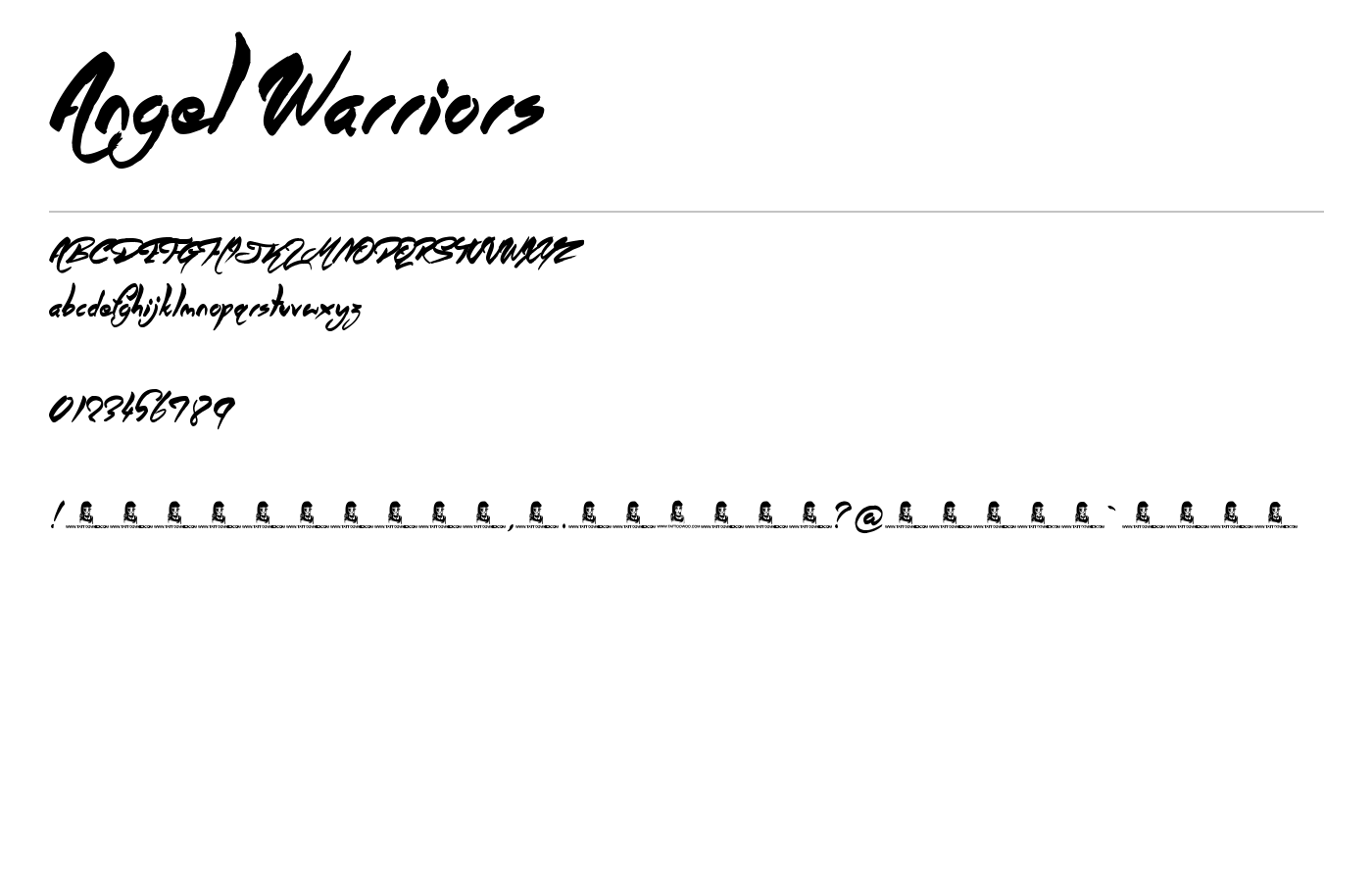
Angel Warriors is a bold and energetic brush script font that conveys a sense of action and drama. Its flowing, hand-drawn strokes create a dynamic, expressive style perfect for branding, posters, and designs needing a strong, artistic impact with a slightly rugged and adventurous vibe. This font works best in headlines and logos where personality and intensity are key.
Angel Warriors Font
About Angel Warriors Font
| Font family | Angel Warriors Font |
| Designer | Jonathan S. Harris |